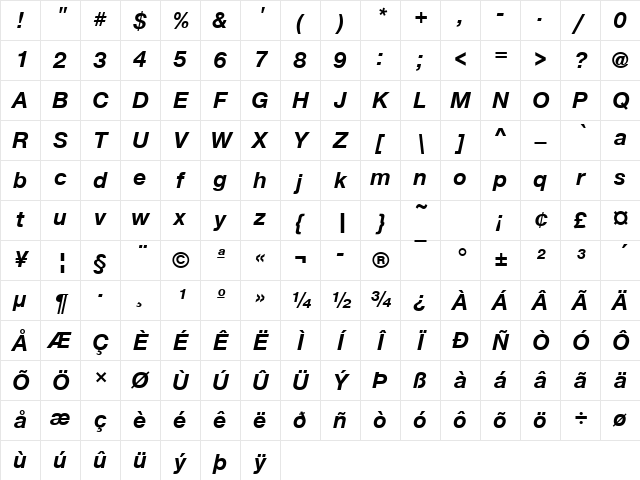
NimbusSanNovT is a composed and adaptable typeface that performs quietly and consistently across a wide range of design contexts. The slanted form adds forward momentum and visual energy. Its bold stroke weight gives it real presence on the page.
Pro Tip: Use NimbusSanNovT for emphasis, pull quotes, and subheadings where its slanted energy can add rhythm to the layout.